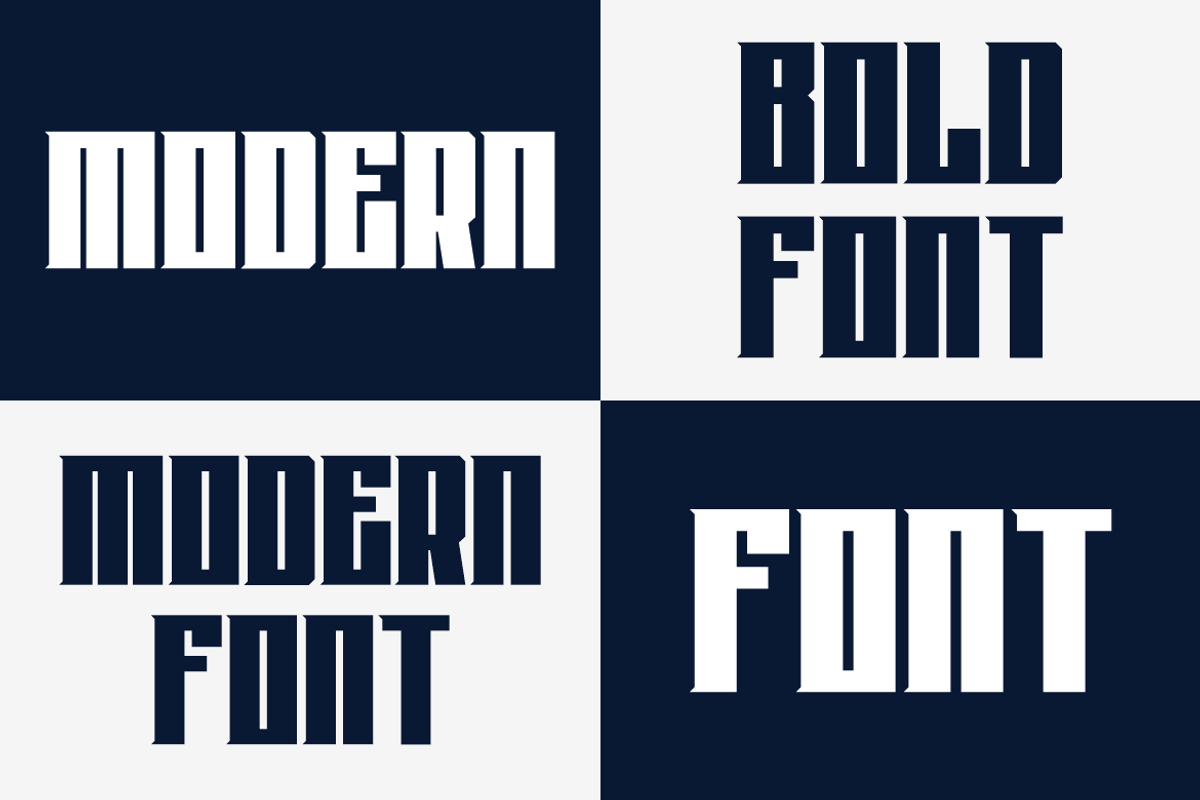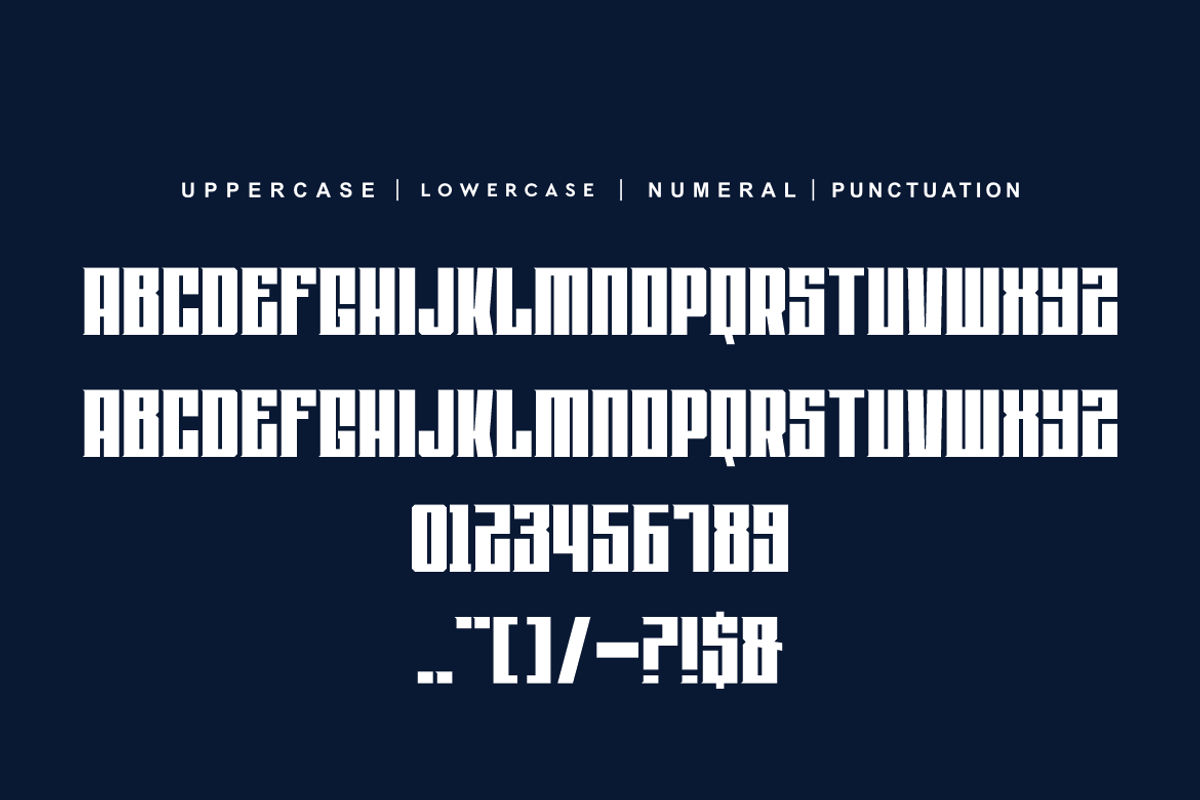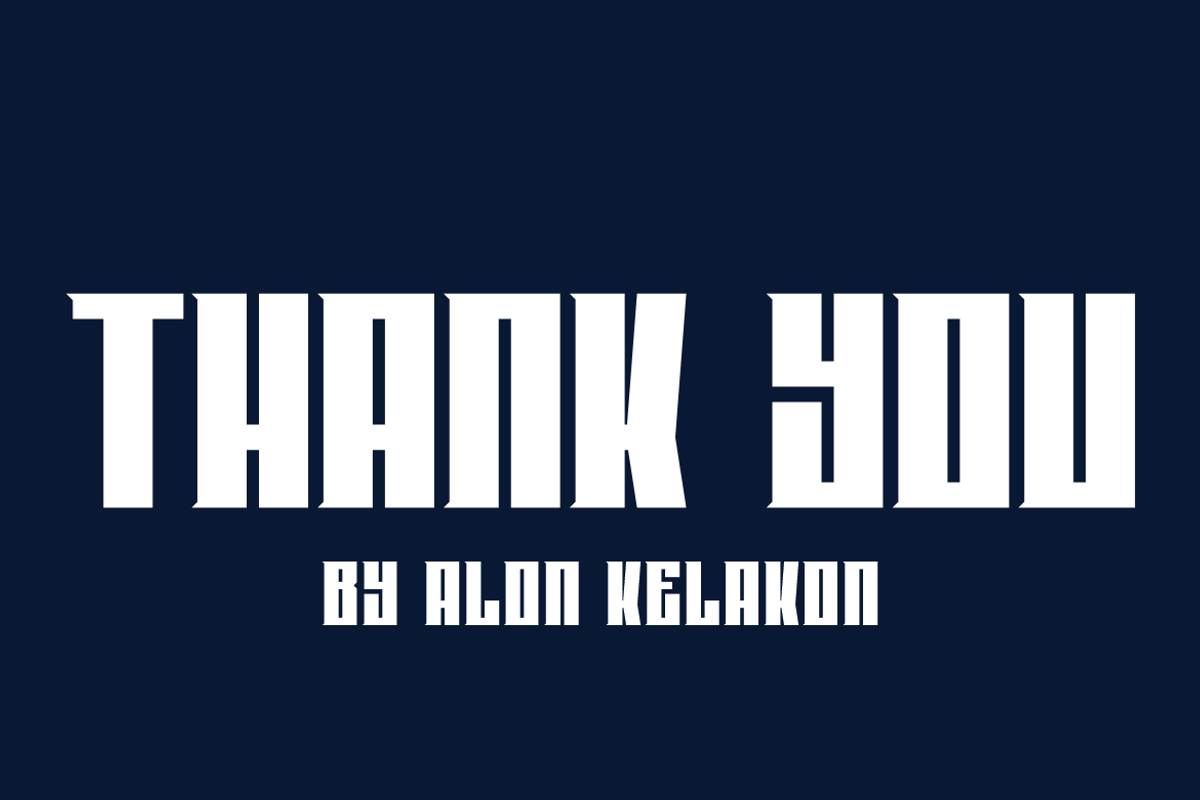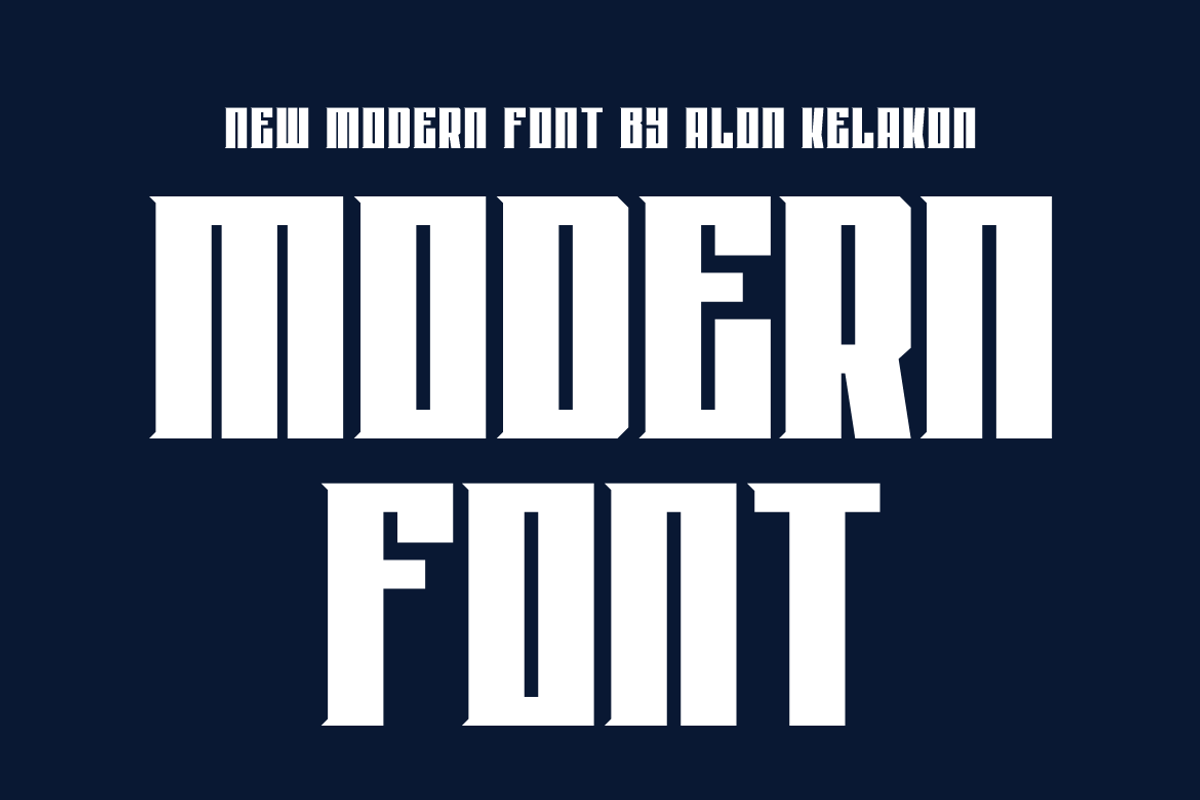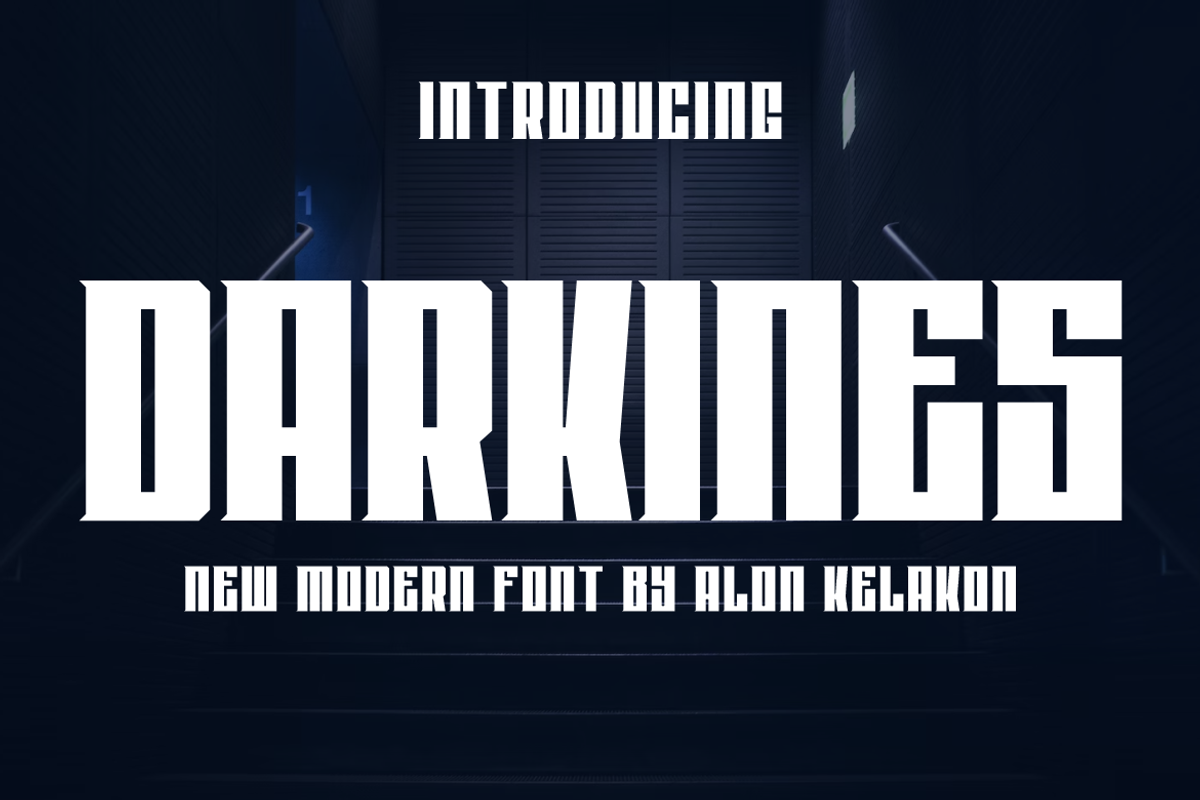
Darkines
Darkines Font is unique . Ready to use for your design like labeling, clothing, movie sceen, poster, movie title, gigs, album covers, logos, and much more.